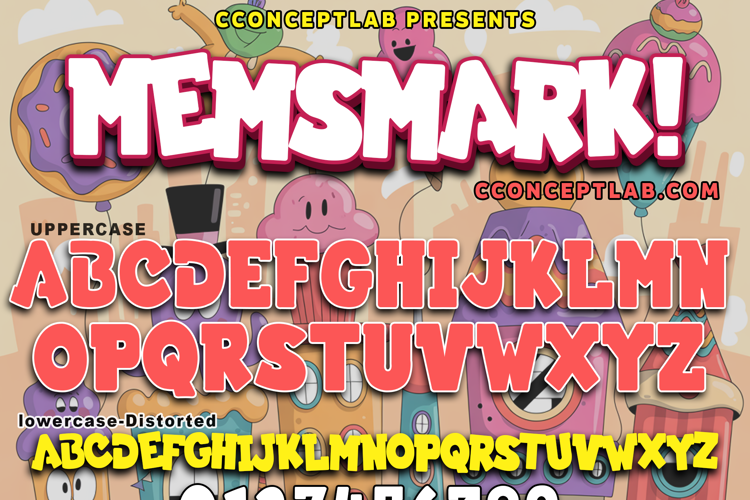
Memsmark! Font
Memsmark! Demo Style
MEMSMARK!
- Groovy comic display font perfect on your projects, invitation, book covers, etc.
- Blackletter children's theme font for branding, marketing, website, mobile app etc.